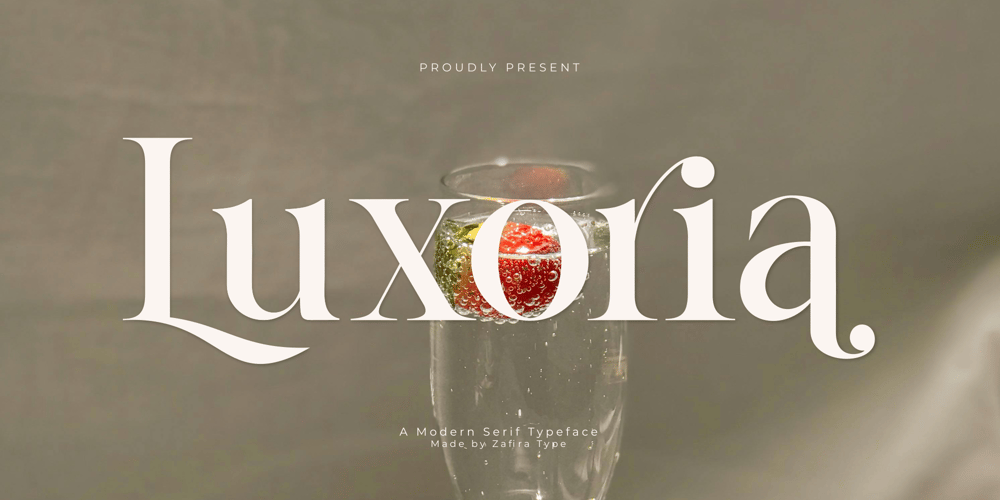
Luxoria
Luxoria font
Luxoria Font Family was designed by Su Hirno and published by Zafira Type. Luxoria contains 1 styles and family package options. Luxoria is a serif font, It is the perfect display typeface for branding projects, logos, wedding designs, social media posts, advertising, product packaging, product designs, labels, photography, invitations, stationery, and any project, created with a high level of readability.This font is PUA encoded which means you can access all of the amazing glyphs and ligatures with ease!